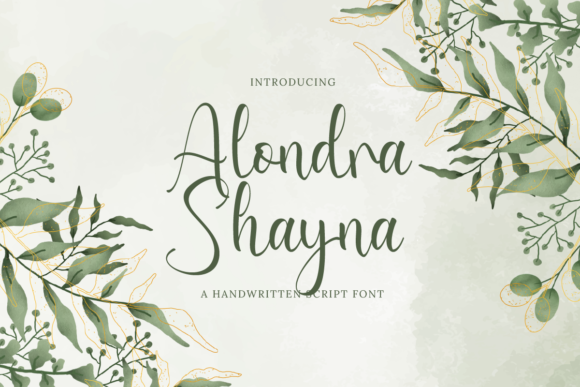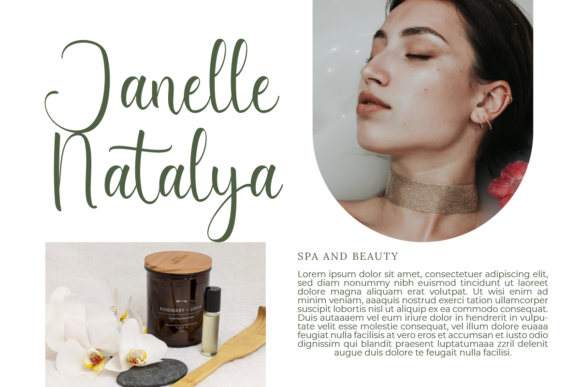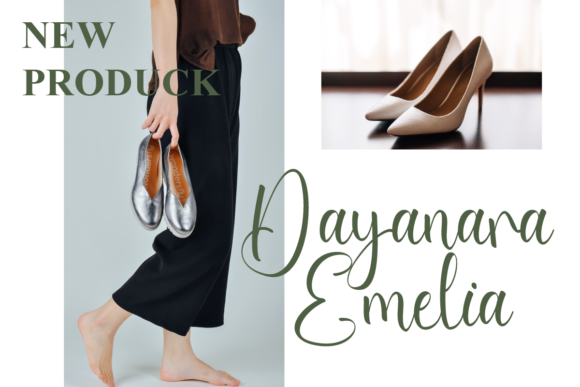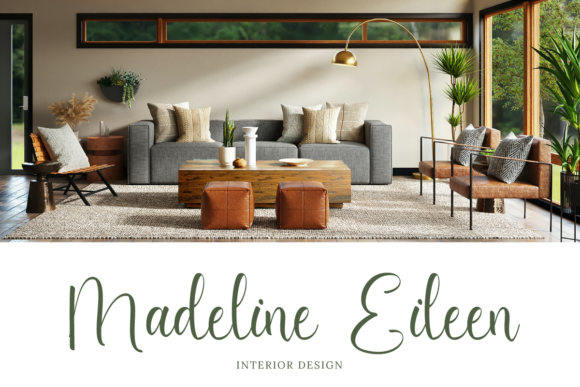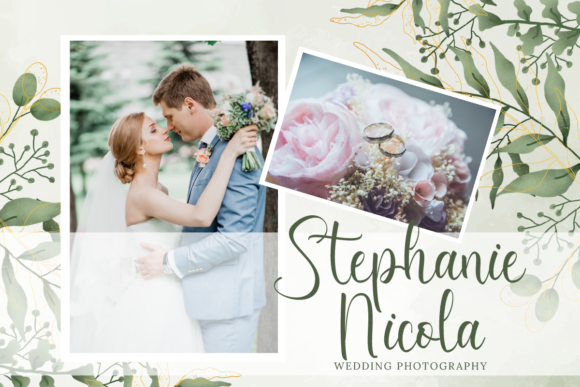
Alondra Shayna Font
About Alondra Shayna Font
Alondra Shayna is a delicate and fashionable script font. It is perfect for any branding project such as logos, t-shirt printing, creative products, and more. It will look extraordinary in a variety of contexts.